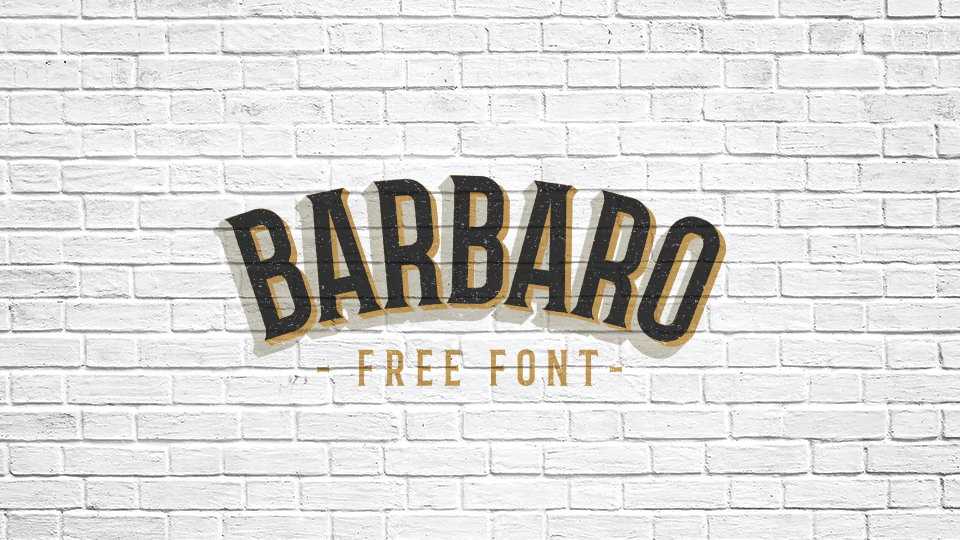
Download Barbaro typeface, a beautiful vintage font family with two styles – Roman and Western. Barbaro perfectly suits for logos, labels and badges, branding and merchandise, headlines and posters and other vintage designs and crafts.
Designer: Iván Núñez